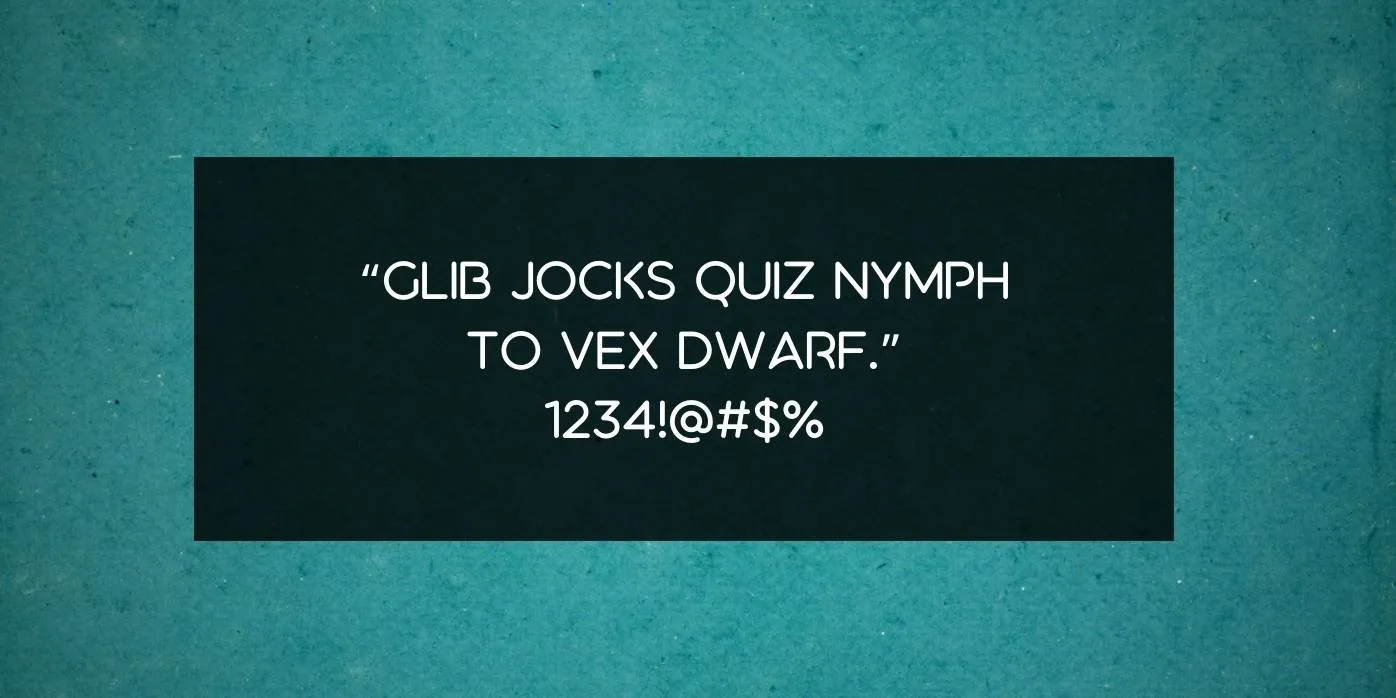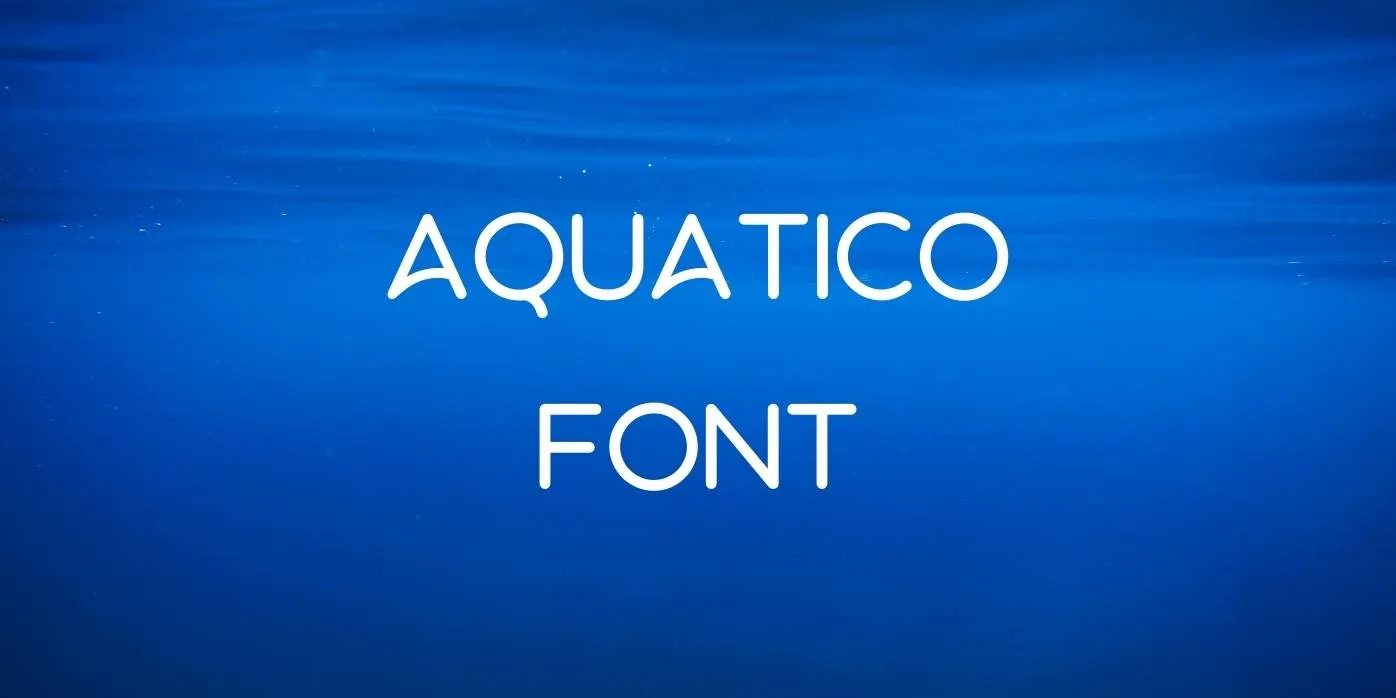
Aquatico Font
Aquatico Font belongs to the sans serif family. Andrew Herndon created it in 2010. The typeface has humanist proportions. It consists of 8 weights, from ExtraLight to Black, each with matching italics.
This typeface is well specified for the CSS and HTML. Aquatico is a versatile typeface that works great for both headlines and body text. The lightest weights work well for displaying large amounts of text, while the heavier weights are better suited for headlines and short blocks of text. You can also utilize it for Adobe Photoshop.